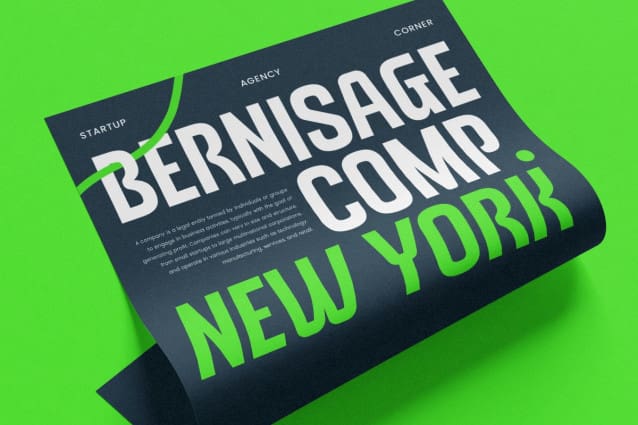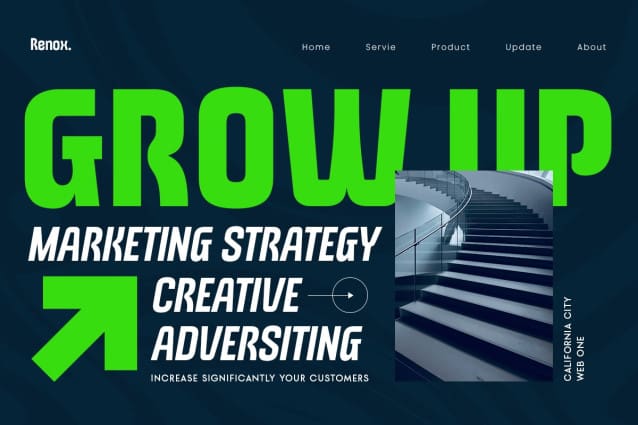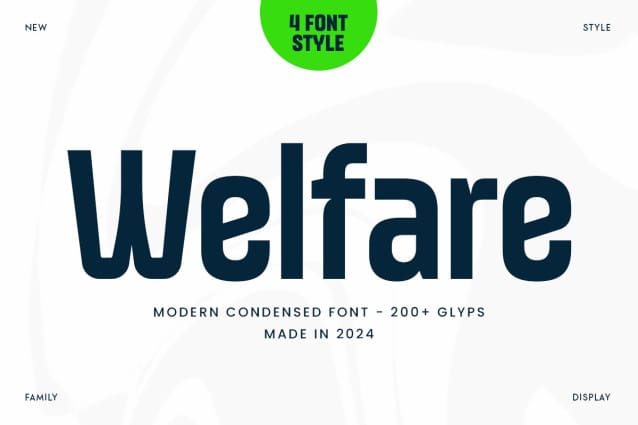
Welfare Font Family
Welfare Font Family is a modern condensed font that strikes the perfect balance between style and clarity. Its elegant, narrow letters make it an ideal choice for professional branding, logos, and impactful typography in any design project. Whether you’re working on corporate collateral, website design, or product packaging, Welfare brings a refined, modern touch to your work.
With an emphasis on readability and clean lines, Welfare’s condensed style maximizes space without sacrificing visual appeal. This font is particularly suited to brands that are looking for a professional and minimalist identity while still remaining bold. Choose Welfare to give your design a fresh and contemporary look, ensuring that every message is emphasized while maintaining a refined and elegant touch.